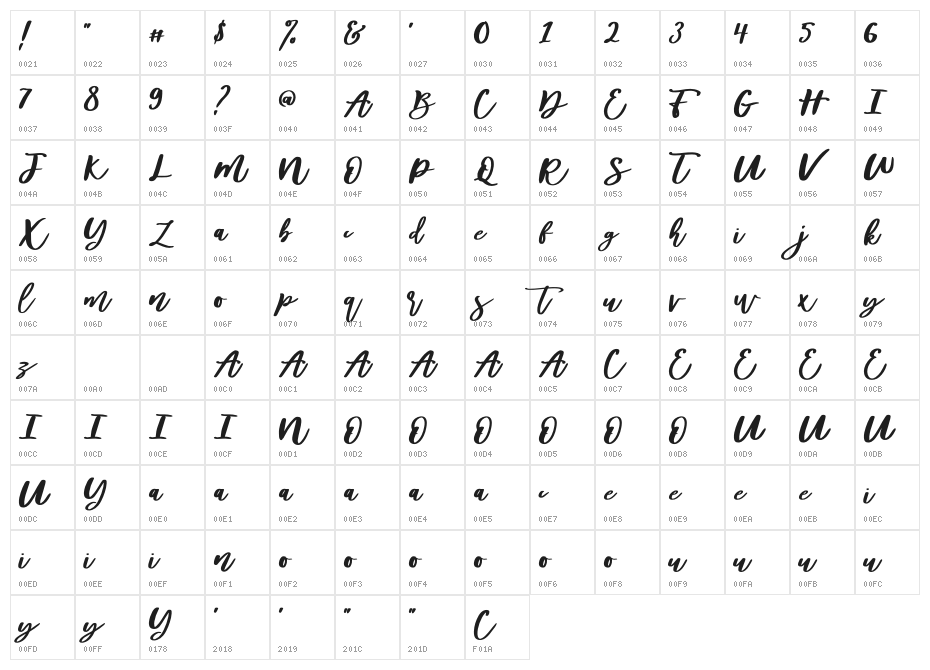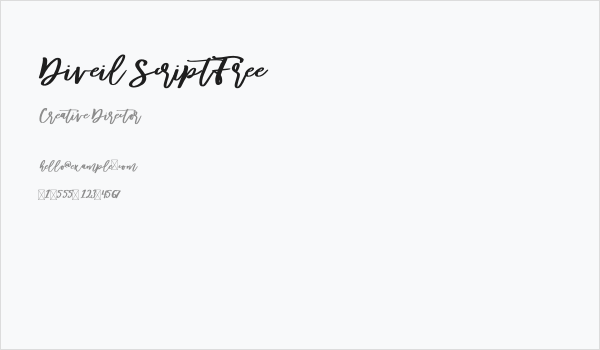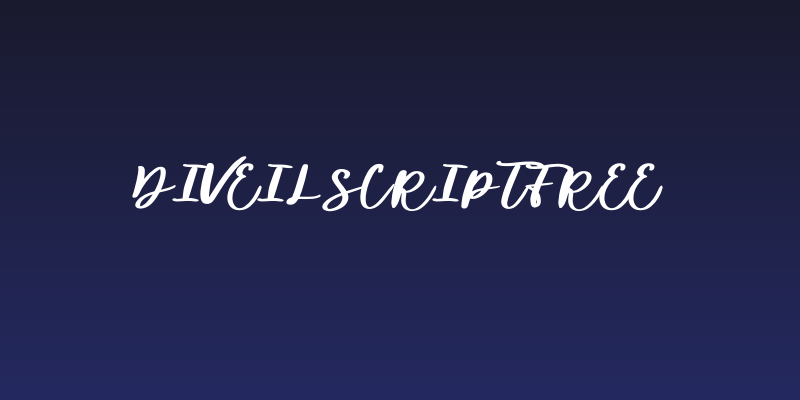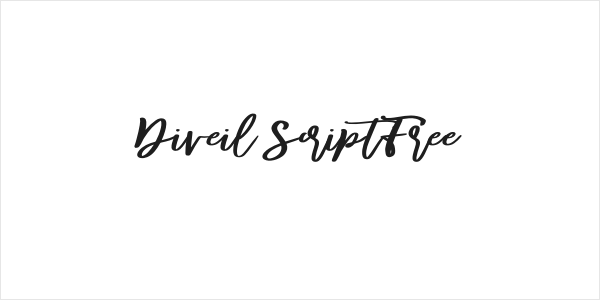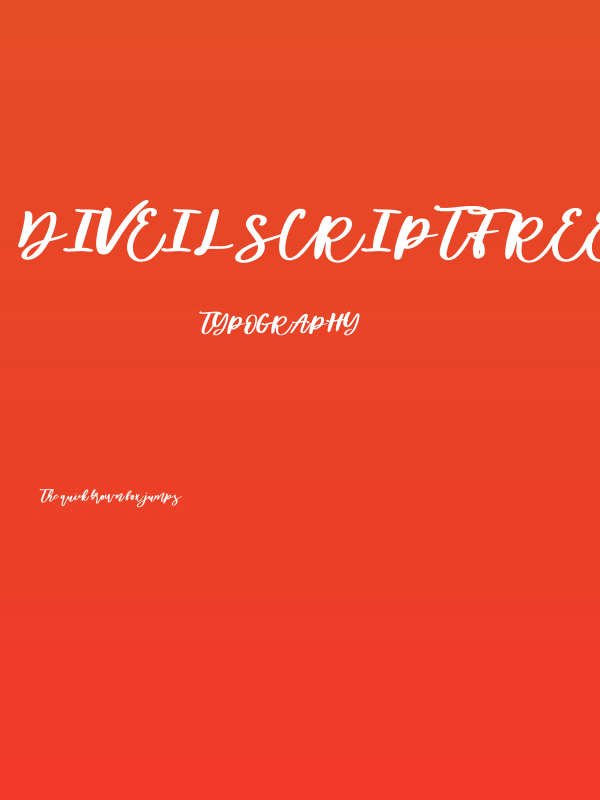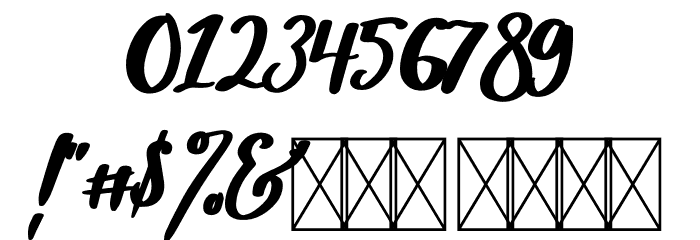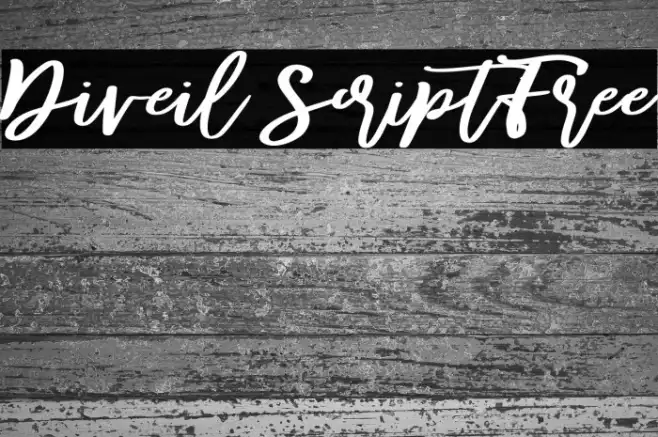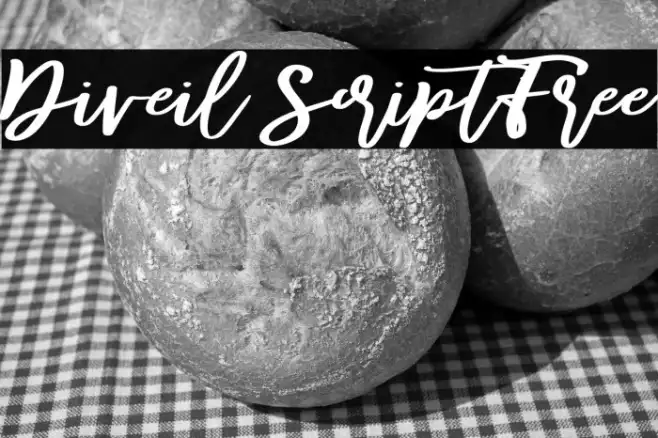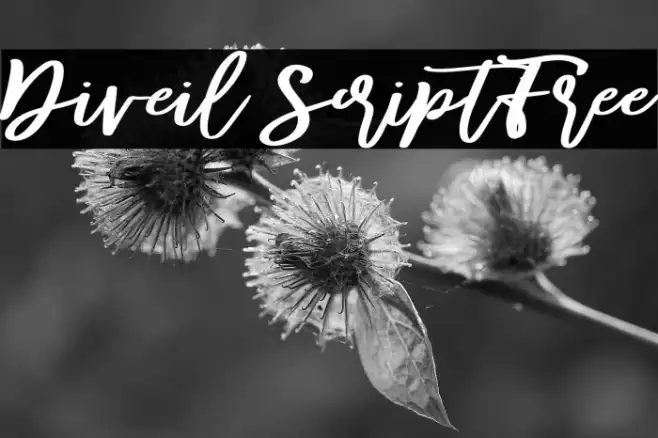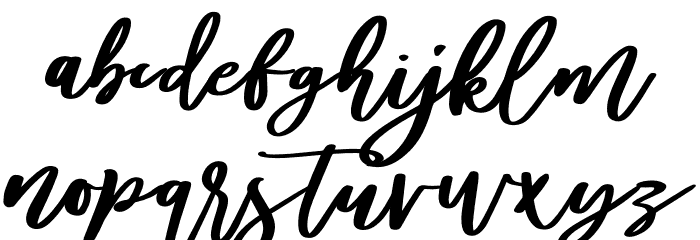
Diveil ScriptFree Font
Diveil ScriptFree Description
This font exudes a lively and expressive character, featuring a handwritten script style with fluid, connected strokes. The uppercase letters are bold and dynamic, while the lowercase letters maintain a consistent flow, enhancing the overall aesthetic. The numerals are equally stylized, matching the playful yet elegant nature of the alphabet. Special characters are included, maintaining the cohesive design. The font's brush-like strokes and varying line thicknesses add a sense of movement and personality, making it ideal for creative and artistic projects.